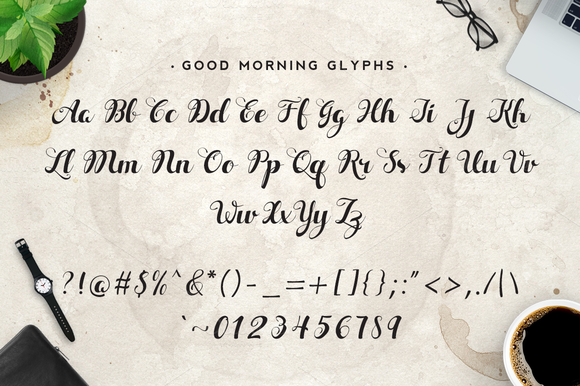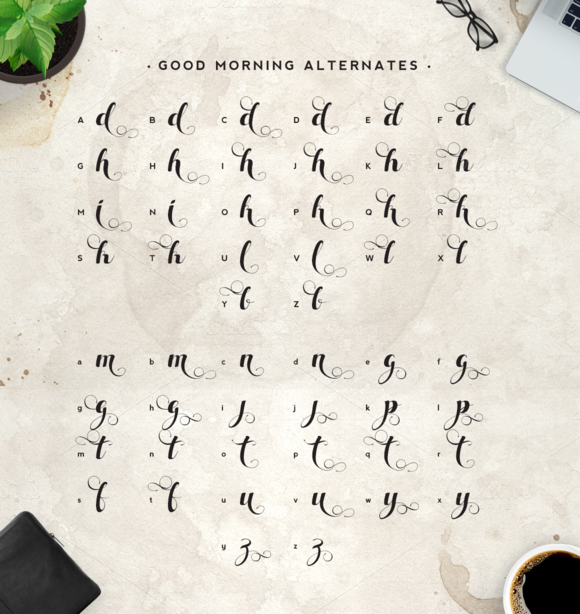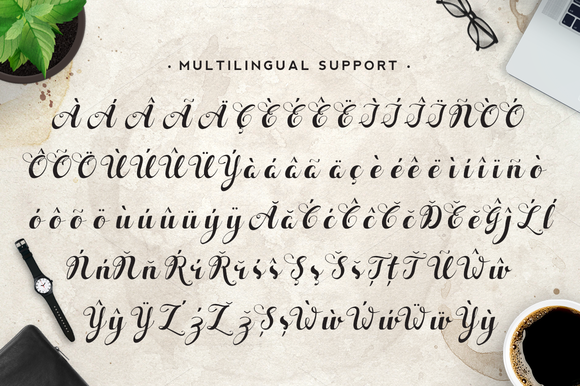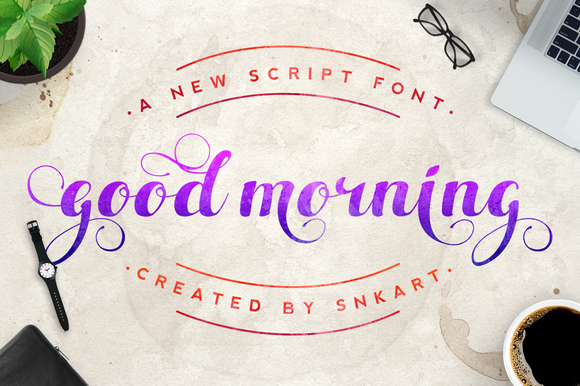
Introducing Good Morning Font: A Modern Script Font for Creative Projects
Are you a designer or crafter looking for a beautiful and versatile font to elevate your creative projects? Look no further than Good Morning Font, a modern script font designed to help you create stunning logos, badges, postcards, book covers, posters, and more.
What is Good Morning Font?
Good Morning Font is a carefully crafted modern script font that is both elegant and versatile. Its unique design makes it perfect for a wide range of creative projects, from professional branding and advertising to personal crafting and DIY endeavors.
Key Features of Good Morning Font
- Highly Versatile: This modern script font is suitable for a wide range of applications, including logos, badges, postcards, book covers, posters, and more.
- Optimized for Small Sizes: Good Morning Font was designed to work well at small sizes, ensuring that your text remains clear and legible even when scaled down.
- Embroidery Friendly: This font is also well-suited for embroidery, making it a great choice for crafters and DIY enthusiasts who want to add a personal touch to their projects.
Benefits of Using Good Morning Font
So why choose Good Morning Font for your creative projects? Here are just a few benefits of using this modern script font:
- Elegant and Sophisticated: Good Morning Font adds a touch of elegance and sophistication to any project, making it perfect for professional branding and advertising.
- Easy to Read: The font’s clear and legible design ensures that your text is easy to read, even at small sizes.
- Highly Customizable: Good Morning Font can be easily customized to fit your project’s specific needs, allowing you to adjust the font size, color, and style to suit your brand or design.
Tips and Inspiration for Using Good Morning Font
Here are a few tips and inspiration ideas for using Good Morning Font in your creative projects:
- Pair with Other Fonts: Experiment with pairing Good Morning Font with other fonts to create a unique and eye-catching design.
- Use in Combination with Images: Combine Good Morning Font with images or graphics to add an extra layer of visual interest to your design.
- Try Embroidery: Use Good Morning Font for embroidery projects, such as custom patches, badges, or iron-on designs.
In conclusion, Good Morning Font is a versatile and elegant modern script font that is perfect for a wide range of creative projects. With its clear and legible design, highly customizable features, and embroidery-friendly format, this font is a must-have for designers and crafters alike. Download Good Morning Font today and start elevating your creative projects to the next level!